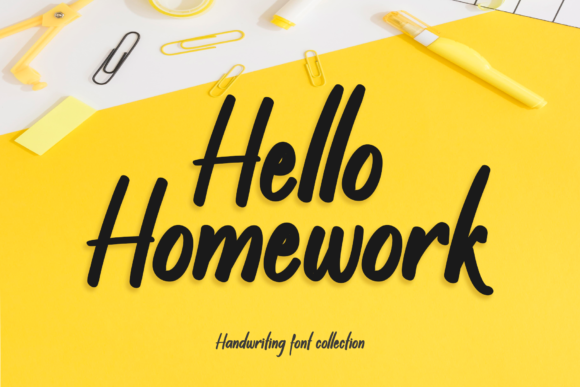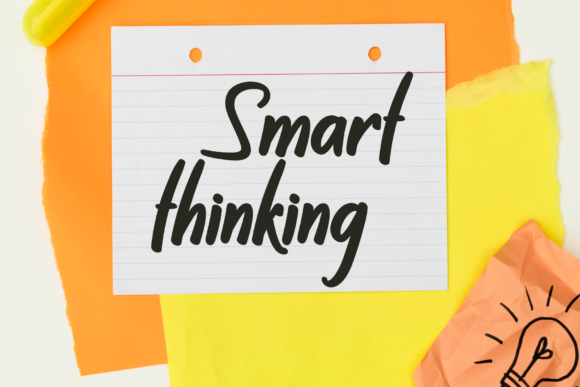
About Hello Homework Font
Hello Homework is a stylish handwritten font that exudes a contemporary vibe while maintaining impeccable form, drawing inspiration from timeless classic calligraphy. This font brings a touch of elegance and class to any design project, making it a versatile choice for a variety of creative endeavors.
The trendy and contemporary atmosphere of Hello Homework ensures that it stays relevant and appealing across different design contexts. Its form, influenced by classic calligraphy, adds a timeless quality, creating a harmonious blend of modernity and tradition.
Whether applied to logos, branding, invitations, posters, or any creative project, Hello Homework stands out as a font that elevates the overall aesthetic. Its versatility allows it to adapt to various design needs, providing a polished and sophisticated look.
In summary, Hello Homework is more than just a font; it’s a design element that effortlessly combines contemporary style with classic influences. Its ability to add elegance and class makes it a valuable asset for designers seeking a trendy handwritten font with timeless appeal.